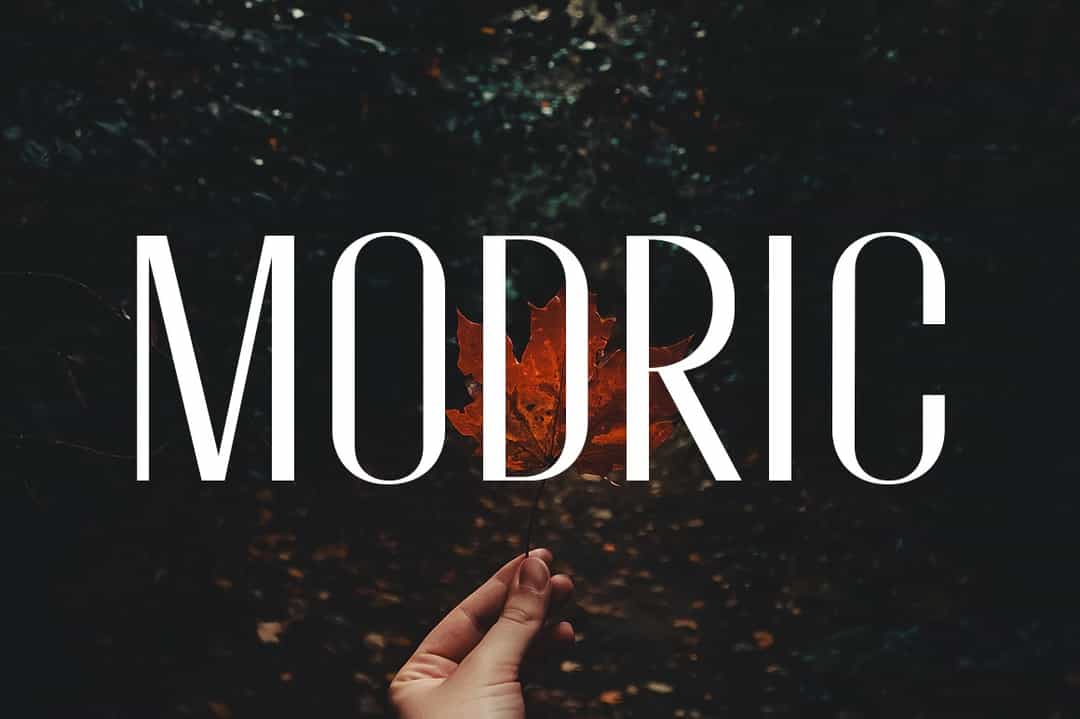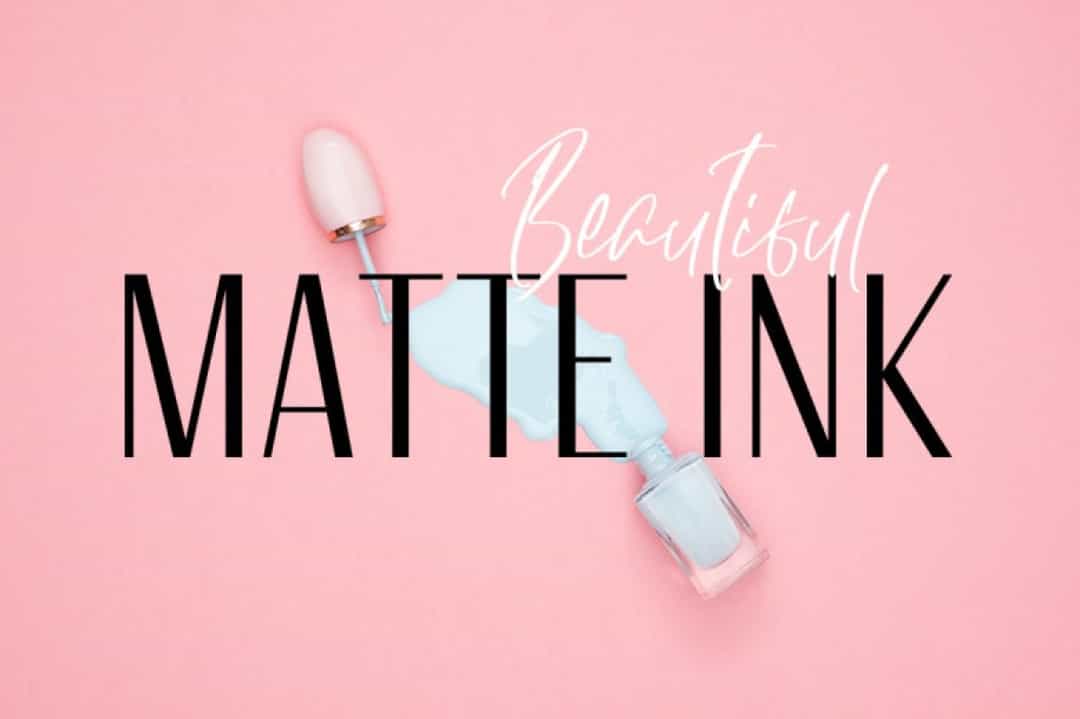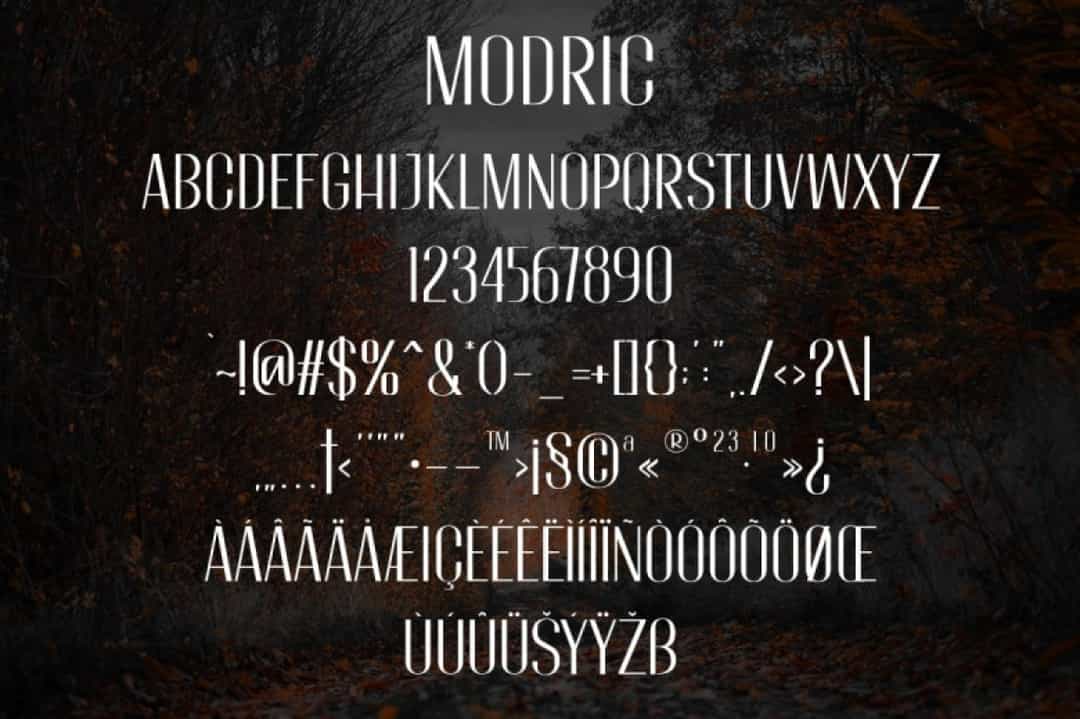
Modric is an expressive sans-serif font that can be used in designs that require functionality since it creates an impact. The creator has drawn the inspiration from the large fonts and has made sure that this font looks as real and unfractured as possible which makes it perfect for logos, signs, and fashion magazines.